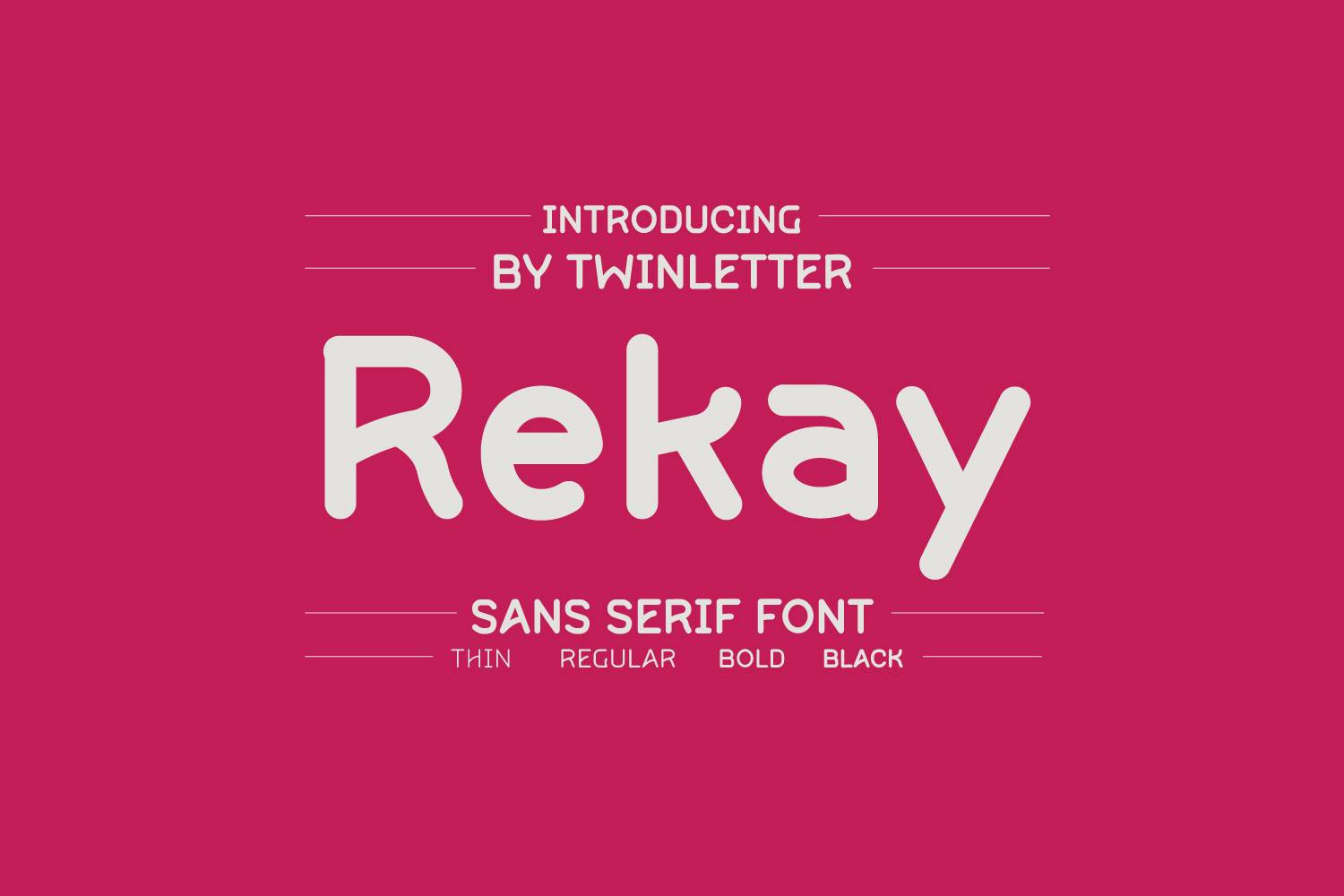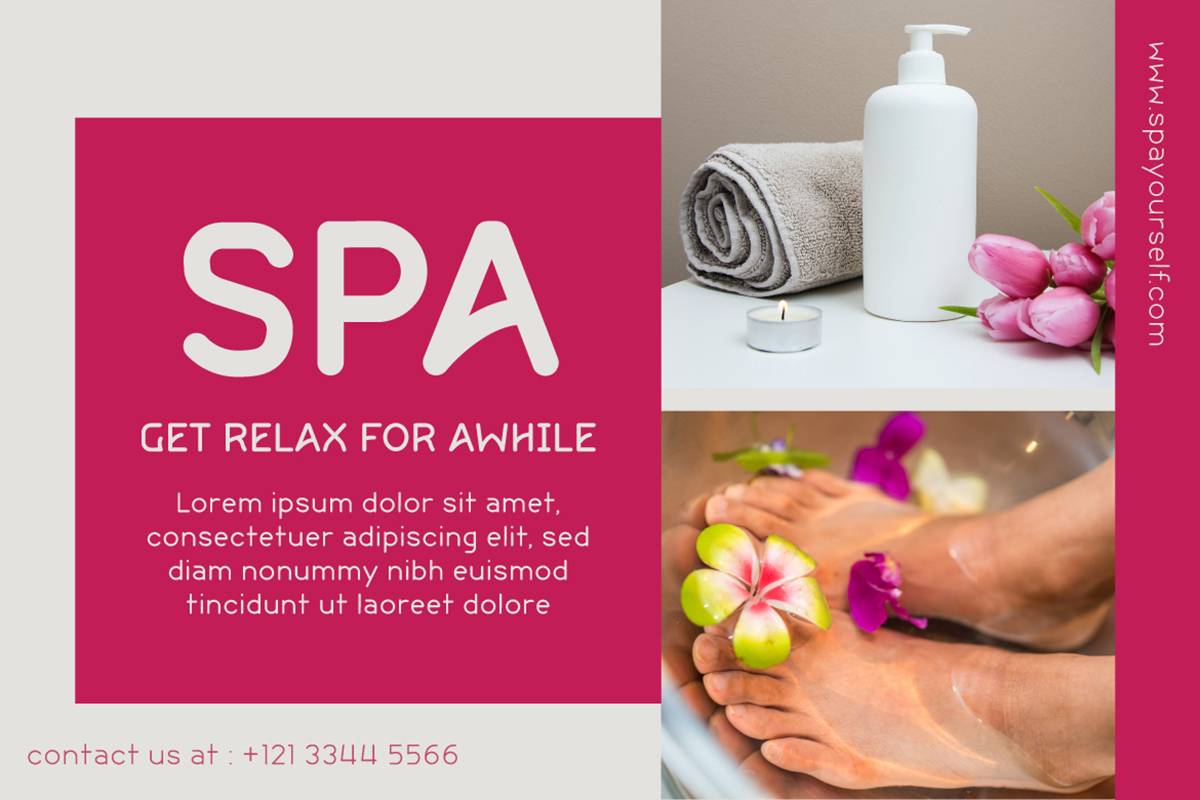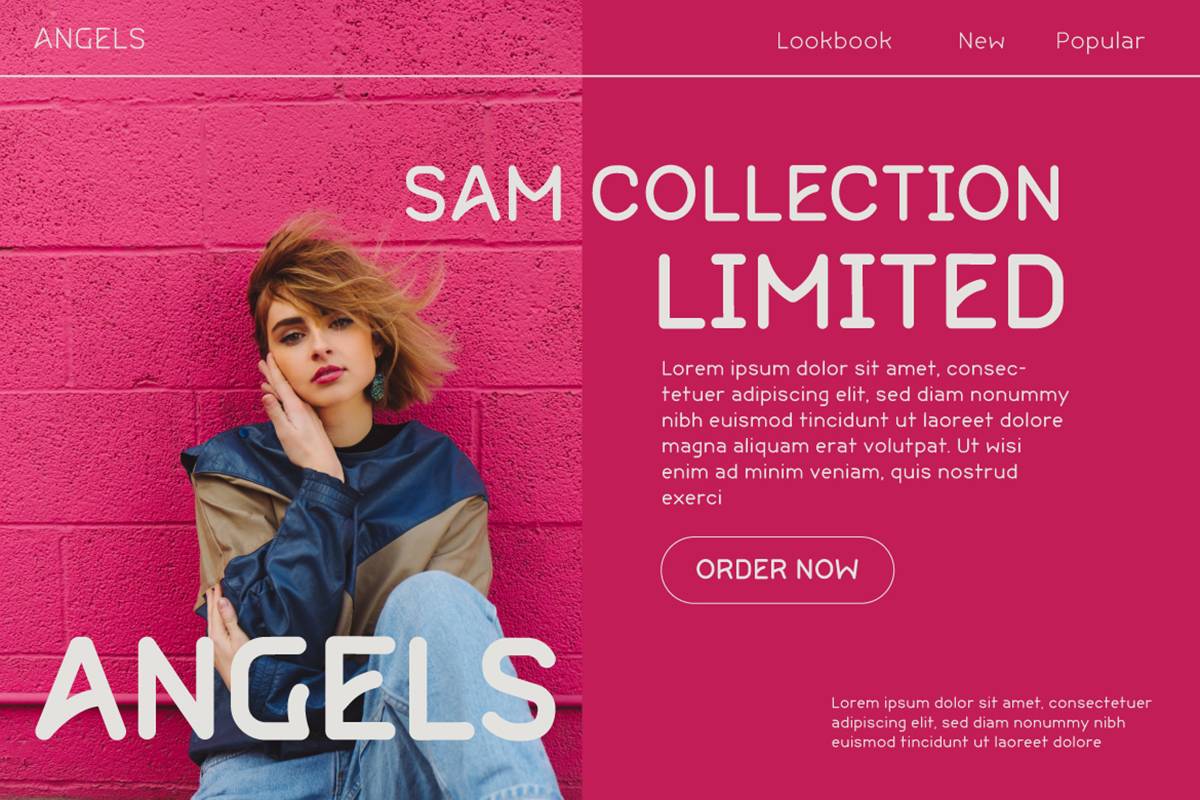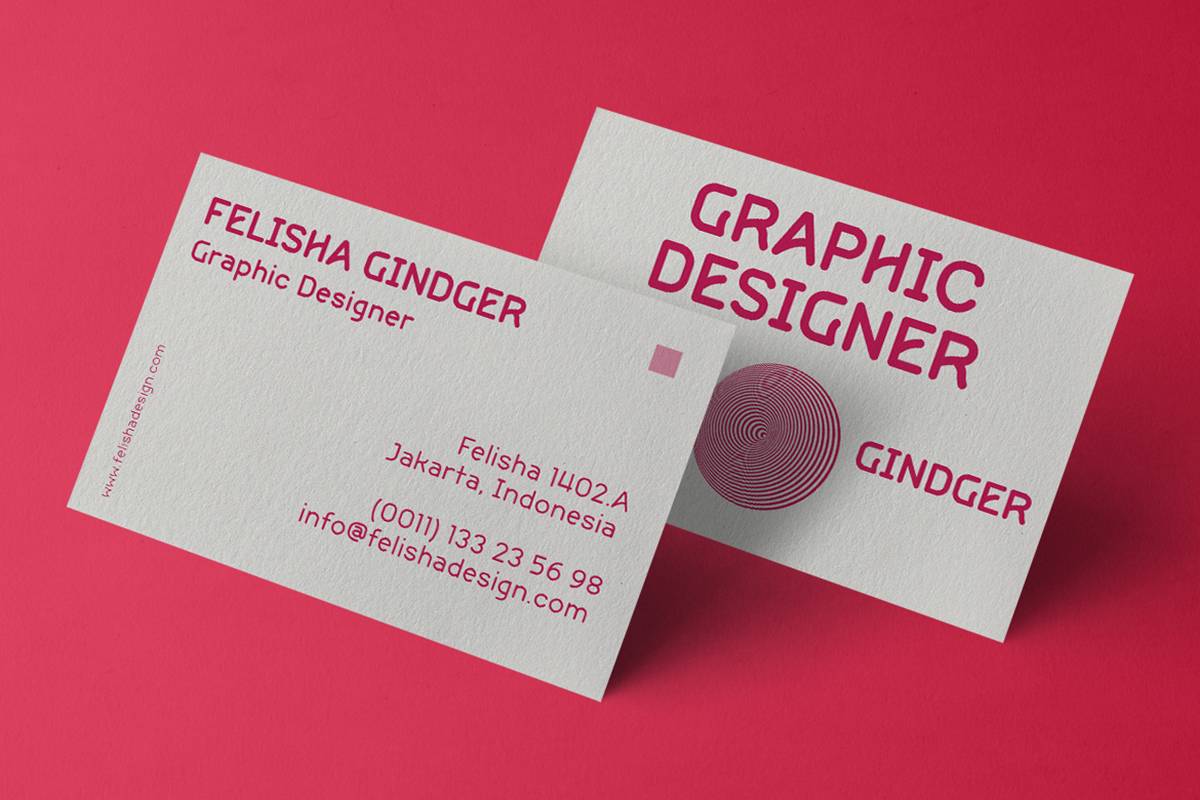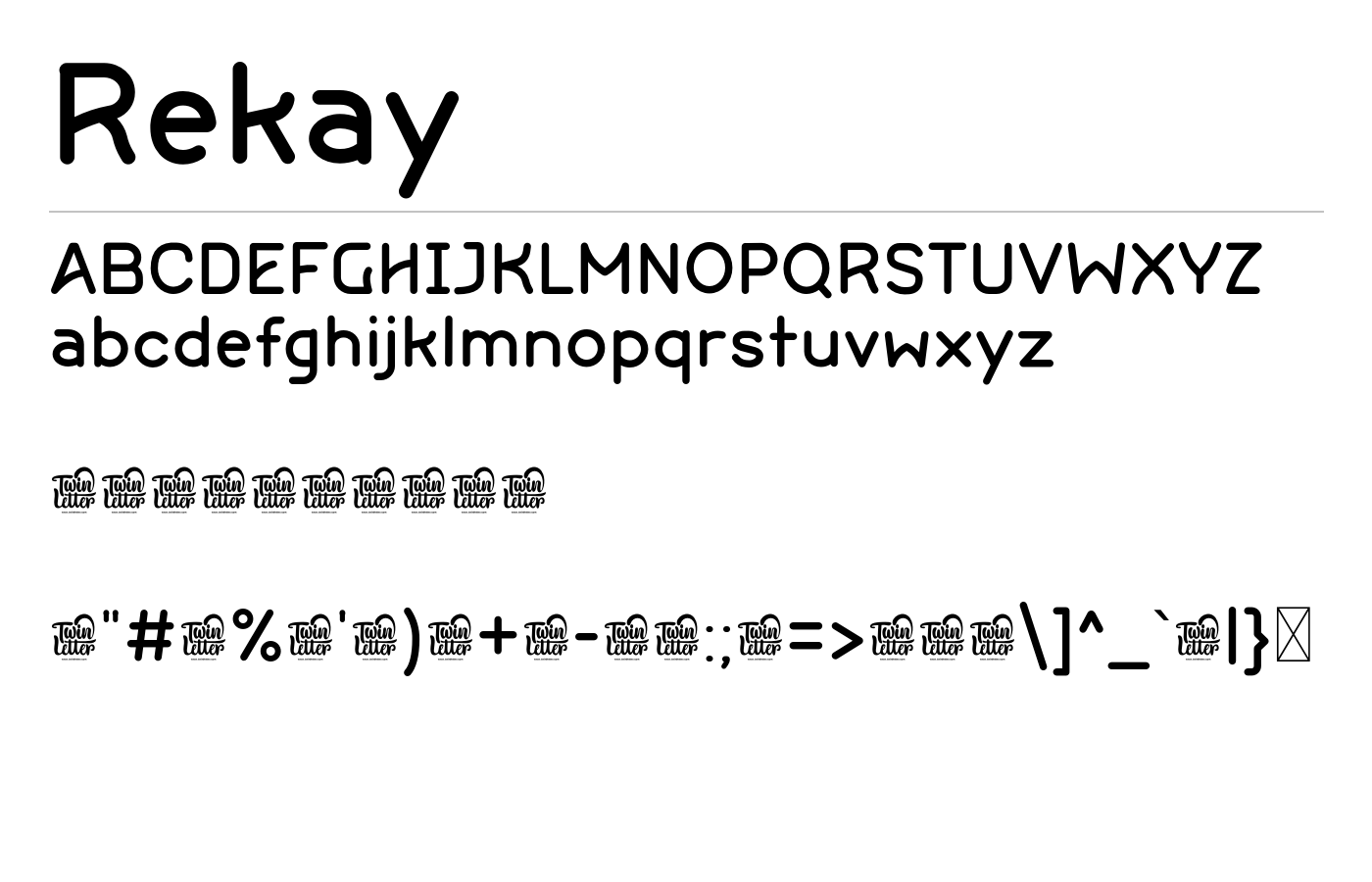
Rekay is a friendly and modern sans serif font with a casual, handwritten feel. Its rounded strokes and slightly irregular letterforms give it an approachable and playful character, making it ideal for informal branding, children’s products, or creative projects. This font works well in headlines or short text where a warm, inviting tone is desired.
Rekay Font
About Rekay Font